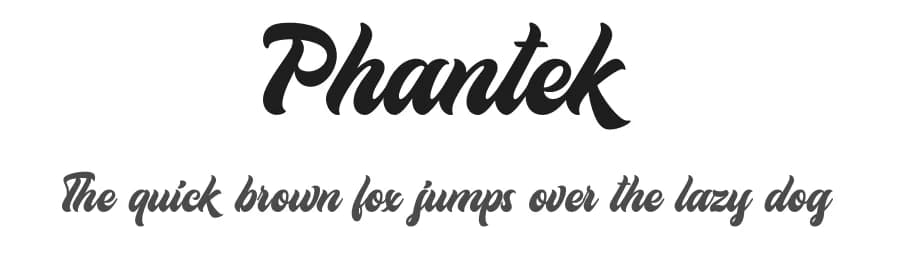
About Phantek Font
Introducing Phantek Script is a strong bold script that comes from hand scratches to get natural writing. With the main style of the hand-lettering script, it will be very interesting if it is added
Phantek Font is a script font that shines as a display or heading face. Pair it with a clean sans-serif or serif font for body text β the contrast creates a clear hierarchy while the two styles stay balanced and easy to read.
Phantek Font